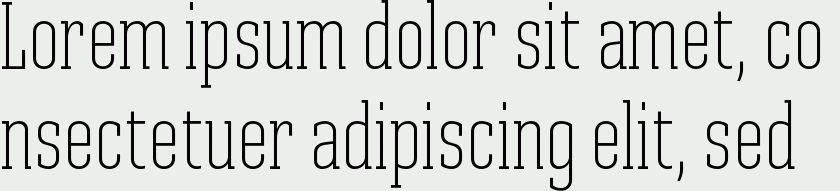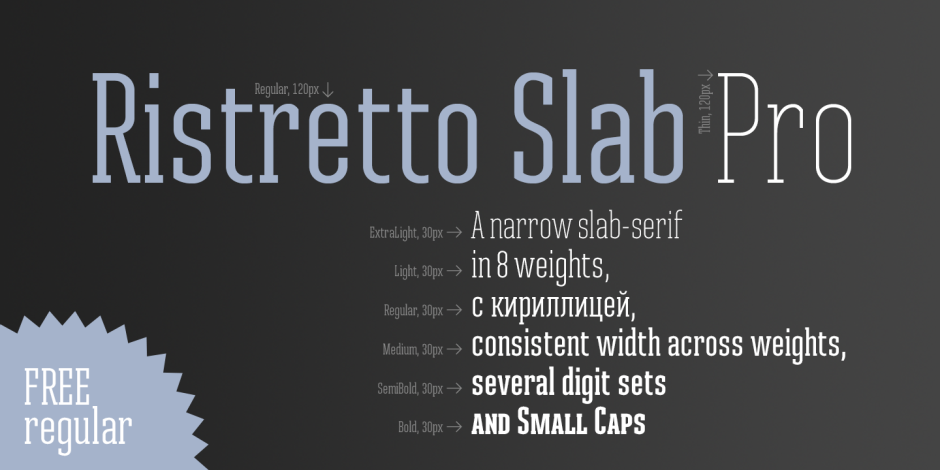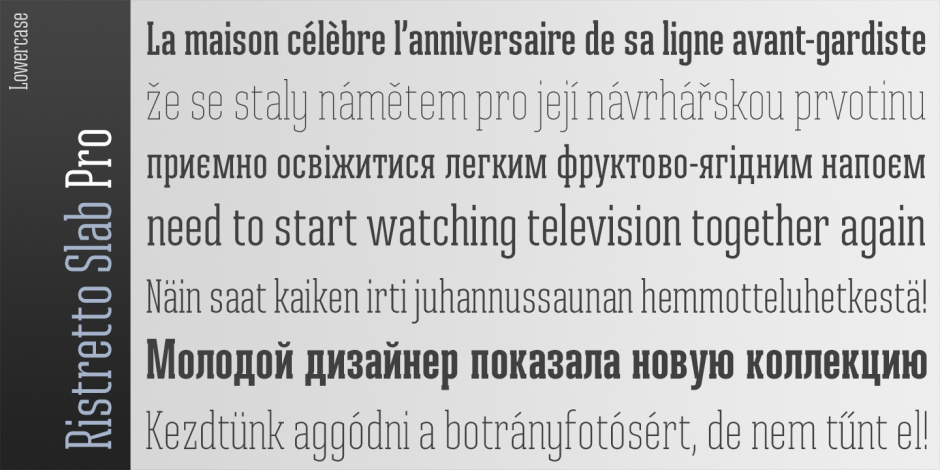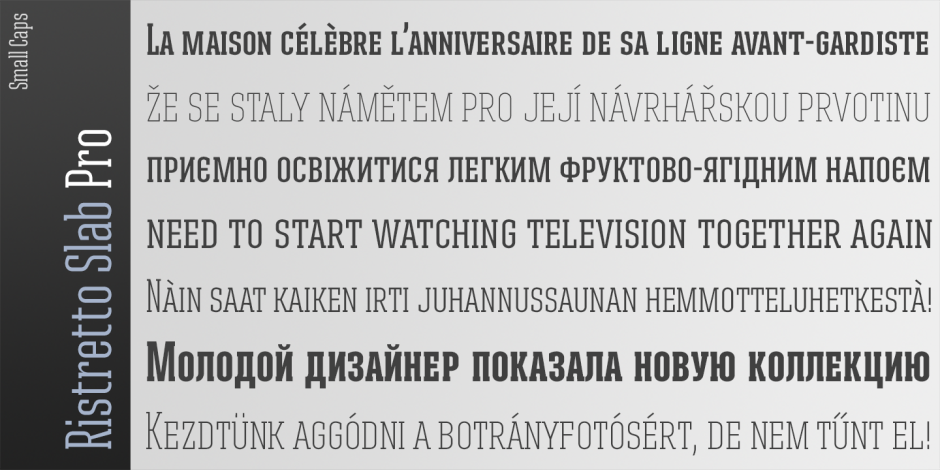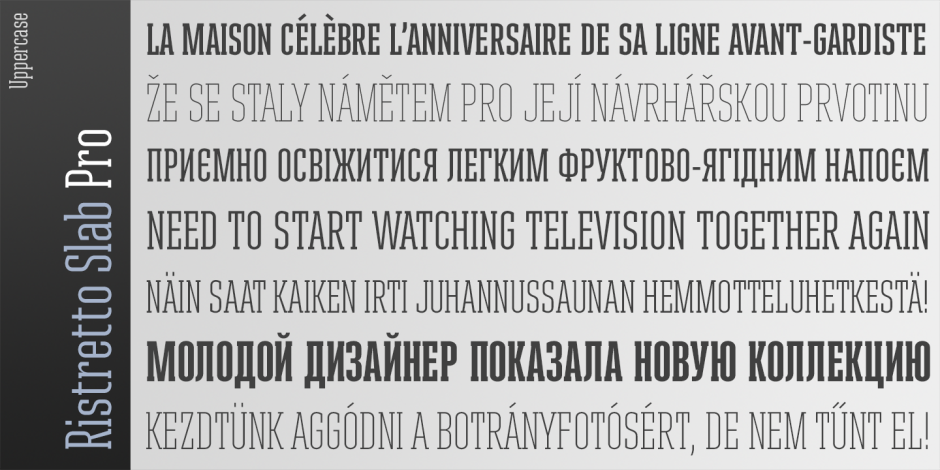
Ristretto Slab Pro
/ Ristretto Slab Pro ExtraLight
Ristretto Slab Pro is a slab-serif companion to Ristretto Pro. It's an extremely narrow display slab-serif font family available in 8 weights. It features rich language support, 6 sets of figures and small caps.